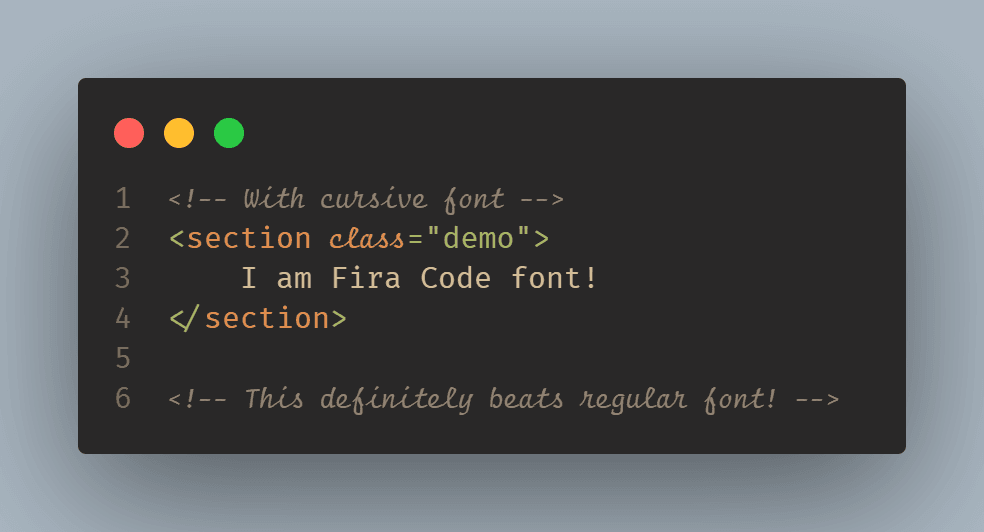
How to Add Cursive Fonts using Fira Code to VS Code
I started using Fira Code as my editor font when I realised that you could actually change the Visual Studio Code's default font! The fact that it had these cool ligatures suckered me in.
Then I noticed online that there were many developers with...